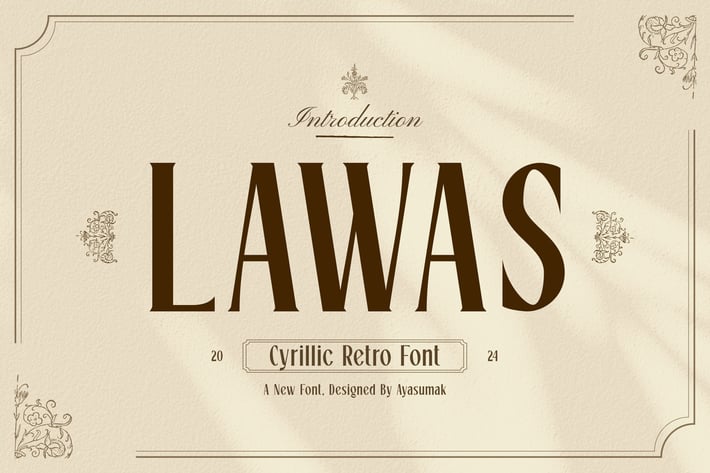
Lawas - Retro Cyrillic Font
Introducing Lawas - Retro Cyrillic Font - a Modern Professional Typeface excellent used for Heading or Title, Logotype, Merchandise, Clothing, Magazine, Corporate, Sports, Event, Ticket and many more.